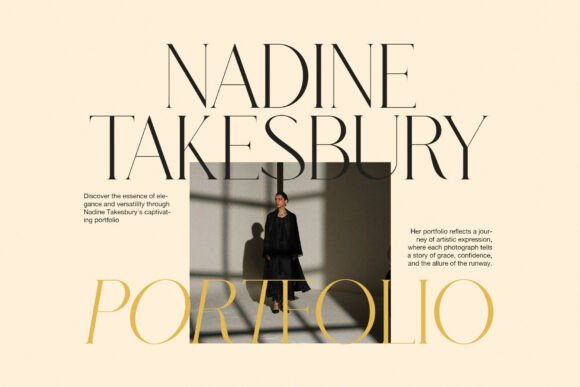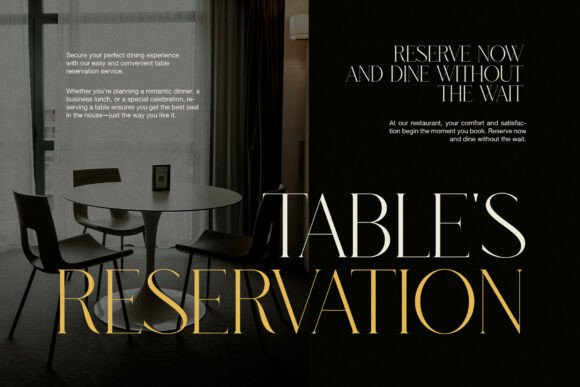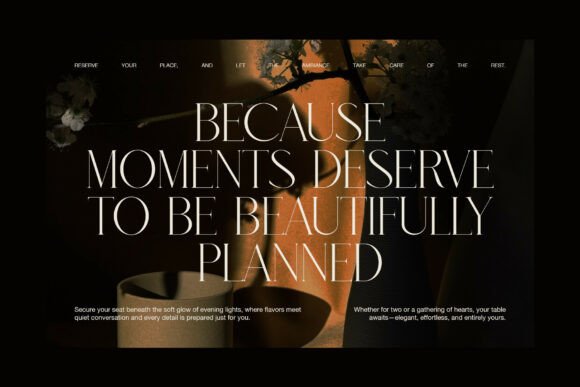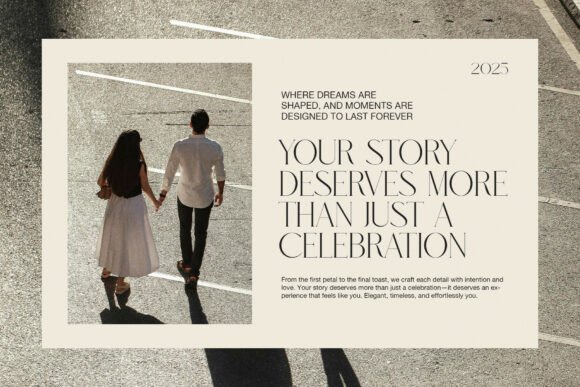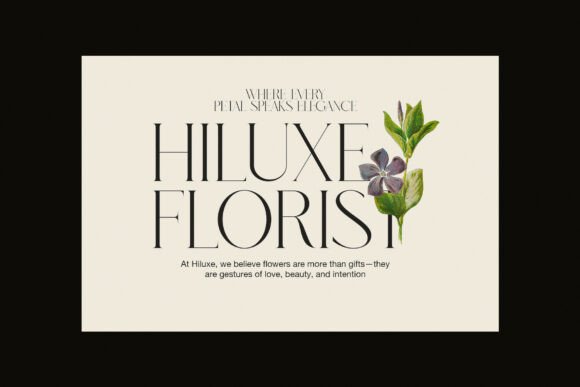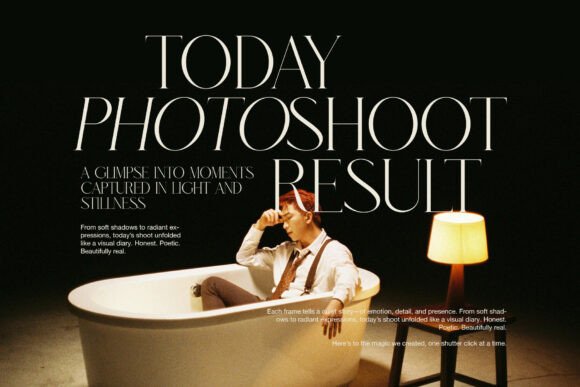
Discover the Power of Cadline Font: Elevate Your Designs with Style and Impact
In the world of typography, fonts play a crucial role in conveying messages, evoking emotions, and creating a lasting impression. Among the numerous fonts available, Cadline Serif font stands out for its unique blend of classic and modern elements, making it an excellent choice for designers and crafters seeking to add a touch of elegance and sophistication to their work. In this article, we’ll explore the features, benefits, and uses of Cadline Serif font, and why it’s becoming a go-to choice for creative projects.
What is Cadline Serif Font?
Cadline Serif font is a clean, bold, and stylish serif typeface designed to make a strong visual impact. Characterized by sharp lines and balanced letter shapes, this font exudes a smart and elegant feel, perfect for designs that require a touch of sophistication. By combining traditional serif elements with a modern aesthetic, Cadline Serif font offers a unique and versatile typographic solution.
Key Features of Cadline Serif Font
- Bold and Sharp Lines: Cadline Serif font features sharp lines and defined letter shapes, making it ideal for headlines, titles, and logos that require a strong presence.
- Balanced Letter Shapes: The font’s balanced letter shapes ensure that the text is easy to read, while maintaining a stylish and elegant appearance.
- Mix of Thick and Thin Strokes: The font’s mix of thick and thin strokes adds style and visual interest without compromising readability.
- Strong Serifs and Neat Curves: Cadline Serif font’s strong serifs and neat curves give it a bold voice, while keeping the text clean and easy to follow.
- Language Support: The font offers full support for many languages, making it an excellent choice for global designs and projects.
Ideal Uses for Cadline Serif Font
Cadline Serif font is suitable for a wide range of creative projects, including:
- Headlines and Titles: Use Cadline Serif font to create bold and eye-catching headlines and titles that demand attention.
- Logos and Brand Names: The font’s elegant and sophisticated appearance makes it perfect for logos and brand names that require a high-end style.
- Packaging Design: Cadline Serif font is ideal for packaging luxury items or modern products, adding a touch of sophistication and elegance.
- Magazine and Book Covers: Use the font to create striking magazine and book covers that require a strong presence.
- Posters and Signs: Cadline Serif font is perfect for posters and signs that need to be clear, eye-catching, and easy to read.
Why Choose Cadline Serif Font?
Cadline Serif font offers several benefits that make it an attractive choice for designers and crafters:
- Versatility: The font’s unique blend of classic and modern elements makes it suitable for a wide range of creative projects.
- Readability: Despite its bold and stylish appearance, Cadline Serif font remains easy to read, even at smaller sizes.
- Elegance: The font’s elegant and sophisticated appearance adds a touch of luxury and refinement to any design.
- Global Compatibility: With full support for many languages, Cadline Serif font is an excellent choice for global designs and projects.
Pairing Cadline Serif Font with Other Fonts
Cadline Serif font pairs well with simple sans serif fonts, creating a balanced and harmonious design. This combination allows designers to create visual interest and contrast, adding depth and complexity to their designs.
In conclusion, Cadline Serif font is a powerful typographic tool that offers a unique blend of style, elegance, and versatility. With its bold and sharp lines, balanced letter shapes, and mix of thick and thin strokes, this font is perfect for designers and crafters seeking to add a touch of sophistication and refinement to their work. Whether you’re designing for a global audience or creating a luxury brand, Cadline Serif font is an excellent choice for any creative project.